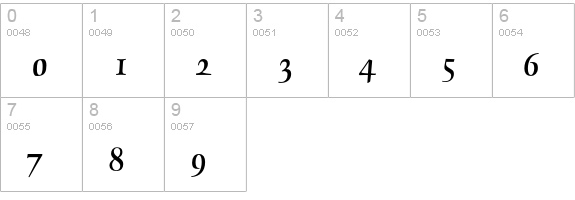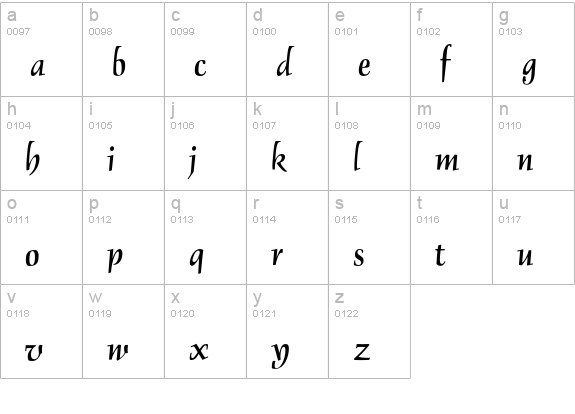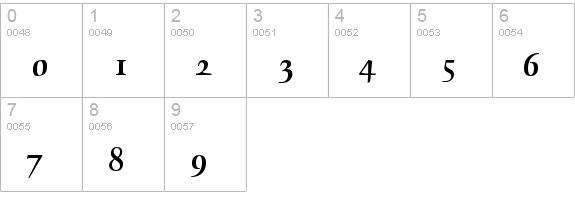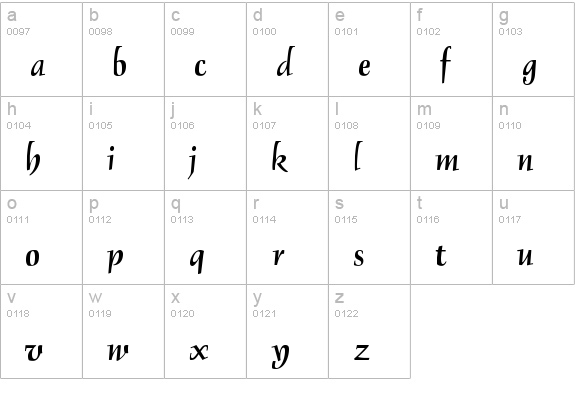
OPTIDelphin-Two Font Details
OPTIDelphin-Two is a modern and stylish font that exudes elegance and sophistication. With its clean lines and unique design, this font is perfect for a wide range of projects, from branding to editorial design. The sleek curves and sharp edges of OPTIDelphin-Two make it stand out from the crowd and add a touch of class to any design. What's even better is that OPTIDelphin-Two is available for free download at FontsMarket.com. This means that you can easily access this beautiful font and use it in your projects without any cost. Whether you're a professional designer or a hobbyist looking to add a special touch to your work, OPTIDelphin-Two is the perfect choice. Download it now and elevate your designs with this stunning font.